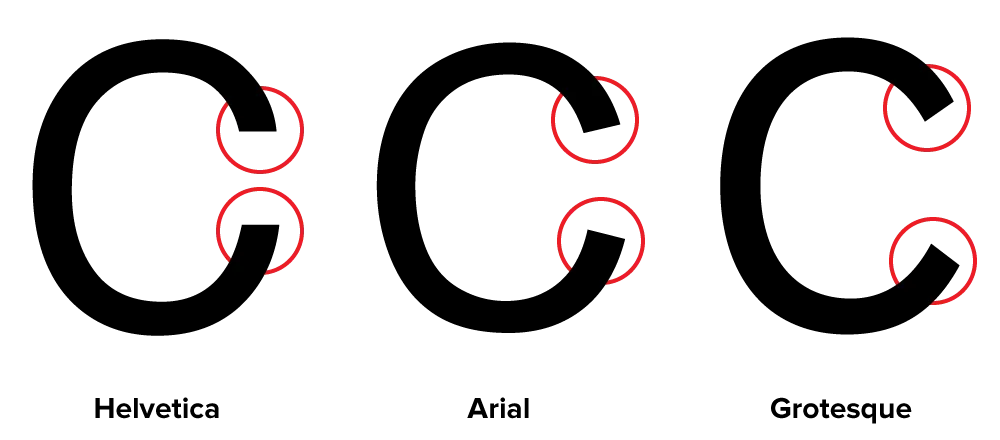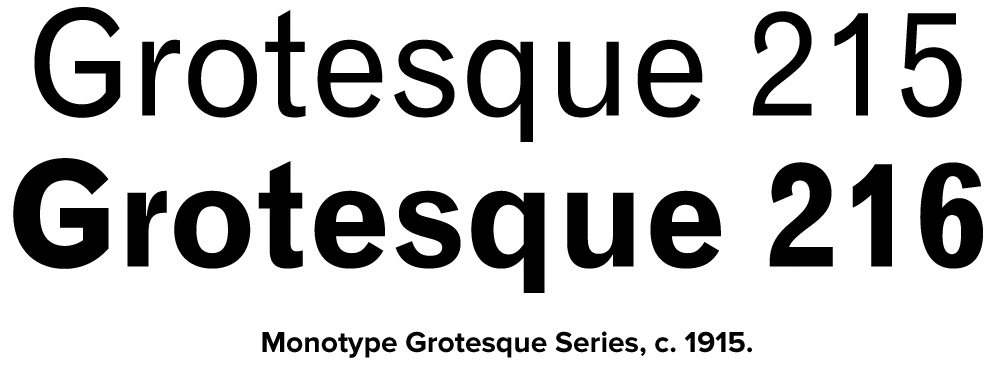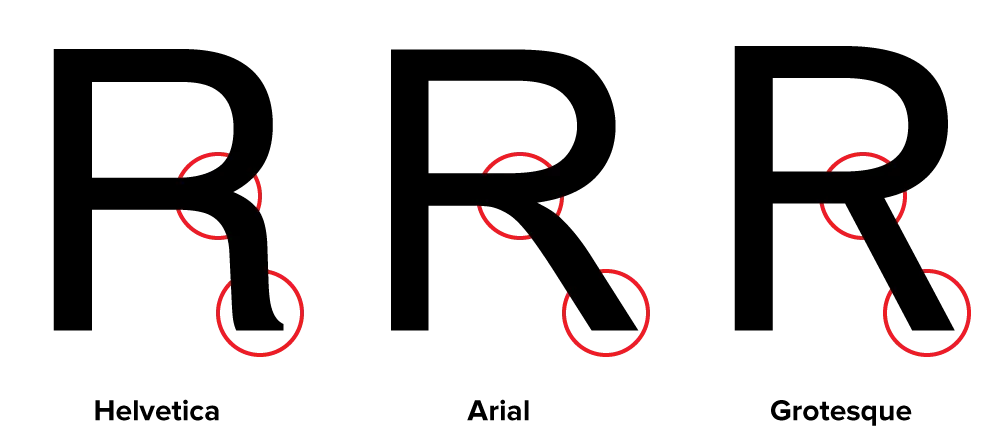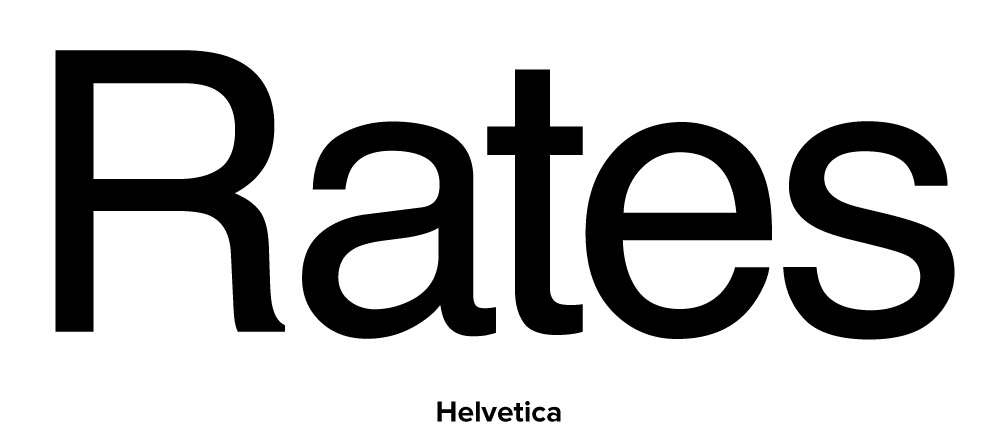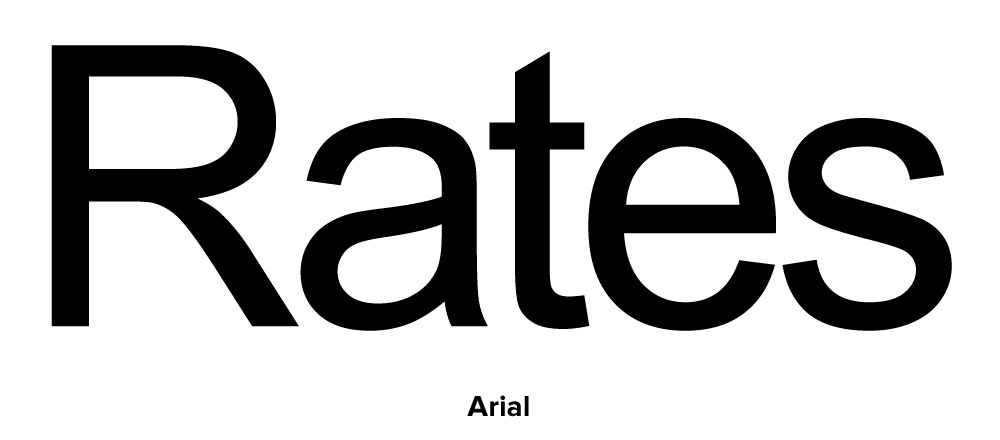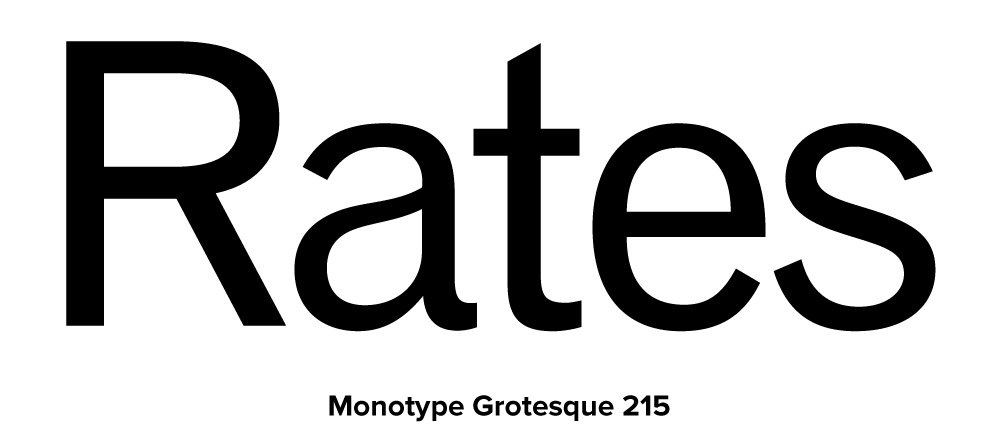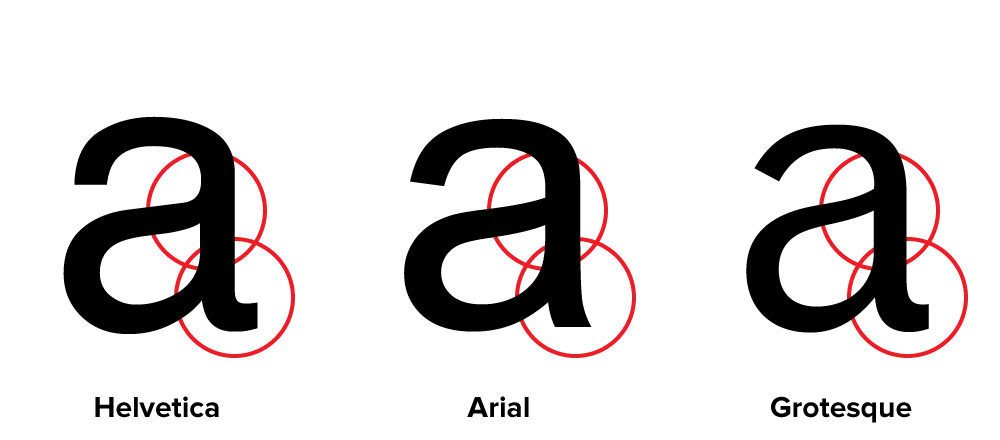
How To Spot Arial
Many of the characters in Helvetica and Arial are very similar to each other, although none are quite identical. Other characters are quite a bit different, and they are the key to telling which is which. Here are some of the most obvious ones (Grotesque 215, Arial’s ancestor, has also been included for comparison):
The “a” in Helvetica has a tail; Arial does not. Also, the bowl of the “a” flows into the stem like a backwards “s”; the bowl of Arial’s “a” simply intersects the stem with a slight curve. (Interestingly, the Grotesque “a” has a tail, just like Helvetica. The bolder weights of Helvetica have no tails, an inconsistency that bothers some people. Maybe it bothered Monotype, too.) Arial’s “a” has always seemed a little badly drawn to me, but maybe it’s just me.
The top of the Arial “t” is cut off at an angle; the Helvetica “t” is cut off straight. You can see clearly here how the x-height of Arial matches Helvetica’s. This is one of the main things that make Arial look like Helvetica at first glance, even though the details are different.
The ends of the strokes of letters like “S” and “C” are perfectly horizontal in Helvetica; in Arial and Grotesque they are cut off at a slight angle.
The “G” in Helvetica has a spur at the bottom of the stem on the right side and the curve at the bottom of the “G” flows into the stem; in Arial and Grotesque the “G” has no spur and the curve at the bottom meets the stem at an angle.
The tail of the “R” in Helvetica flows out from the bowl and curves straight down, ending in a slight curve to the right. In Arial, the tail flows down and to the right from near the center of the horizontal bar and straightens out at an angle to the end. It appears to be a compromise between the Helvetica “R” and the Grotesque “R.” This feature is very unusual for a “grotesque” design, and is more typical of “humanist” sans serifs. It feels out of place here and is one of the more awkward design features of Arial.
Here is the same word set in all three typefaces:
In both fonts, the characteristics described here apply to all weights (except, of course, the tail on the Helvetica “a,” which is dropped on the bolder weights).
Monotype’s Other “Arials”
Interestingly, Monotype created cheap substitutes for not only Helvetica, but all the other proprietary fonts Adobe has included with PostScript. These were created at the request of Microsoft for inclusion with its PostScript clone, TrueImage, and also included with Windows and Microsoft Office.
Of these other substitutes, Book Antiqua looks nearly identical to Palatino. The designer of Palatino, Herman Zapf, has been known to do off-name versions of his own typefaces for other foundries (notably Bitstream), but in this case he had nothing to do with it, other than being copied. [Interestingly, Microsoft now includes a very good—and fully licensed—version of Palatino with Windows. —MS]
On the other hand, they created substitute fonts for two of his other typefaces, Corsiva for Zapf Chancery and Monotype Sorts for Zapf Dingbats.
As for the others, they are similar to Arial in that they are loosely based on typefaces owned by Monotype reworked to fit the proportions and weight of a specific non-Monotype font.
Century Gothic is Monotype’s Twentieth Century redrawn to match the weight and proportions of ITC Avant Garde Gothic. (Twentieth Century is Monotype’s version of Futura.)
Bookman Oldstyle is the original Bookman (late 19th century, ATF) redrawn to match the weight and proportions of ITC Bookman, including its cursive italic. The original Bookman had a slanted roman for italic.
Century Schoolbook is simply the earlier design upon which New Century Schoolbook is based, which both Monotype and Linotype licensed from American Type Founders. The two are virtually indistinguishable except for the extra weights offered in the Linotype version.
Times New Roman was developed originally by Monotype in the 1930s. Linotype’s Times is actually licensed from Monotype. In this case, the Monotype version is obviously more authentic, though the differences are extremely subtle.
The Scourge of Arial
Arial is everywhere. If you don’t know what it is, you don’t use a modern personal computer. Arial is a font that is familiar to anyone who uses Microsoft products, whether on a PC or a Mac. It has spread like a virus through the typographic landscape and illustrates the pervasiveness of Microsoft’s influence in the world.
Arial’s ubiquity is not due to its beauty. It’s actually rather homely. Not that homeliness is necessarily a bad thing for a typeface. With typefaces, character and history are just as important. Arial, however, has a rather dubious history and not much character. In fact, Arial is little more than a shameless impostor.
Throughout the latter half of the twentieth century, one of the most popular typefaces in the western world was Helvetica. It was developed by the Haas Foundry of Switzerland in the 1950s. Later, Haas merged with Linotype and Helvetica was heavily promoted. More weights were added and it really began to catch on.
An icon of the Swiss school of typography, Helvetica swept through the design world in the ’60s and became synonymous with modern, progressive, cosmopolitan attitudes. With its friendly, cheerful appearance and clean lines, it was universally embraced for a time by both the corporate and design worlds as a nearly perfect typeface to be used for anything and everything. “When in doubt, use Helvetica” was a common rule.
As it spread into the mainstream in the ’70s, many designers tired of it and moved on to other typographic fashions, but by then it had become a staple of everyday design and printing. So in the early ’80s when Adobe developed the PostScript page description language, it was no surprise that they chose Helvetica as one of the basic four fonts to be included with every PostScript interpreter they licensed (along with Times, Courier, and Symbol). Adobe licensed its fonts from the original foundries, demonstrating their respect and appreciation for the integrity of type, type foundries and designers. They perhaps realized that if they had used knock-offs of popular typefaces, the professional graphic arts industry—a key market—would not accept them.
By the late eighties, the desktop publishing phenomenon was in full swing. Led by the Macintosh and programs like PageMaker, and made possible by Adobe’s PostScript page description language, anyone could do near professional-quality typesetting on relatively inexpensive personal computers.
But there was a problem. There were two kinds of PostScript fonts: Type 1 and Type 3. Type 1 fonts included “hints” that improved the quality of output dramatically over Type 3 fonts. Adobe provided information on making Type 3 fonts, but kept the secrets of the superior Type 1 font technology to itself. If you wanted Type 1 fonts, Adobe was the only source. Anyone else who wanted to make or sell fonts had to settle for the inferior Type 3 format. Adobe wanted the high end of the market all to itself.
By 1989, a number of companies were hard at work trying to crack the Type 1 format or devise alternatives. Apple and Microsoft signed a cross-licensing agreement to create an alternative to Adobe’s technology. While Microsoft worked on TrueImage, a page description language, Apple developed the TrueType format. TrueType was a more open format and was compatible with—but not dependent on—PostScript. This effectively forced Adobe’s hand, causing them to release the secrets of the Type 1 format to save themselves from irrelevancy.
Around the same time, PostScript “clones” were being developed to compete with Adobe. These PostScript “work-alikes” were usually bundled with “look-alike” fonts, since the originals were owned by Adobe’s business partners. One PostScript clone, sold by Birmy, featured a Helvetica substitute developed by Monotype called Arial.
Arial appears to be a loose adaptation of Monotype’s venerable Grotesque series, redrawn to match the proportions and weight of Helvetica. At a glance, it looks like Helvetica, but up close it’s different in dozens of seemingly arbitrary ways. Because it matched Helvetica’s proportions, it was possible to automatically substitute Arial when Helvetica was specified in a document printed on a PostScript clone output device. To the untrained eye, the difference was hard to spot. (See “How to Spot Arial”) After all, most people would have trouble telling the difference between a serif and a sans serif typeface. But to an experienced designer, it was like asking for Jimmy Stewart and getting Rich Little.
What is really strange about Arial is that it appears that Monotype was uncomfortable about doing a direct copy of Helvetica. They could very easily have done that and gotten away with it. Many type manufacturers in the past have done knock-offs of Helvetica that were indistinguishable or nearly so. For better or worse, in many countries—particularly the U.S.—while typeface names can be protected legally, typeface designs themselves are difficult to protect. So, if you wanted to buy a typesetting machine and wanted the real Helvetica, you had to buy Linotype. If you opted to purchase Compugraphic, AM, or Alphatype typesetting equipment, you couldn’t get Helvetica. Instead you got Triumvirate, or Helios, or Megaron, or Newton, or whatever. Every typesetting manufacturer had its own Helvetica look-alike. It’s quite possible that most of the “Helvetica” seen in the ’70s was actually not Helvetica.
Now, Monotype was a respected type foundry with a glorious past and perhaps the idea of being associated with these “pirates” was unacceptable. So, instead, they found a loophole and devised an “original” design that just happens to share exactly the same proportions and weight as another typeface. (See “Monotype’s Other ‘Arials’”) This, to my mind, is almost worse than an outright copy. A copy, it could be said, pays homage (if not license fees) to the original by its very existence. Arial, on the other hand, pretends to be different. It says, in effect “I’m not Helvetica. I don’t even look like Helvetica!”, but gladly steps into the same shoes. In fact, it has no other role.
***
When Microsoft made TrueType the standard font format for Windows 3.1, they opted to go with Arial rather than Helvetica, probably because it was cheaper and they knew most people wouldn’t know (or even care about) the difference. Apple also standardized on TrueType at the same time, but went with Helvetica, not Arial, and paid Linotype’s license fee. Of course, Windows 3.1 was a big hit. Thus, Arial is now everywhere, a side effect of Windows’ success, born out of the desire to avoid paying license fees.
The situation today is that Arial has displaced Helvetica as the standard font in practically everything done by nonprofessionals in print, on television, and on the Web, where it’s become a standard font, mostly because of Microsoft bundling it with everything—even for Macs, which already come with Helvetica. This is not such a big deal since at the low resolution of a computer screen, it might as well be Helvetica. In any case, for fonts on the Web, Arial is one of the few choices available.
Despite its pervasiveness, a professional designer would rarely—at least for the moment—specify Arial. To professional designers, Arial is looked down on as a not-very-faithful imitation of a typeface that is no longer fashionable. It has what you might call a “low-end stigma.” The few cases that I have heard of where a designer has intentionally used Arial were because the client insisted on it. Why? The client wanted to be able to produce materials in-house that matched their corporate look and they already had Arial, because it’s included with Windows. True to its heritage, Arial gets chosen because it’s cheap, not because it’s a great typeface.
It’s been a very long time since I was actually a fan of Helvetica, but the fact is Helvetica became popular on its own merits. Arial owes its very existence to that success but is little more than a parasite—and it looks like it’s the kind that eventually destroys the host. I can almost hear young designers now saying, “Helvetica? That’s that font that looks kinda like Arial, right?”